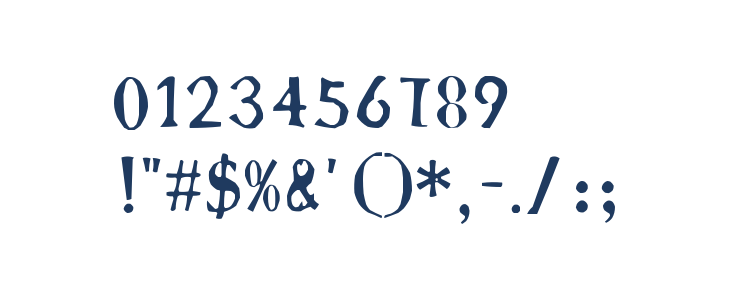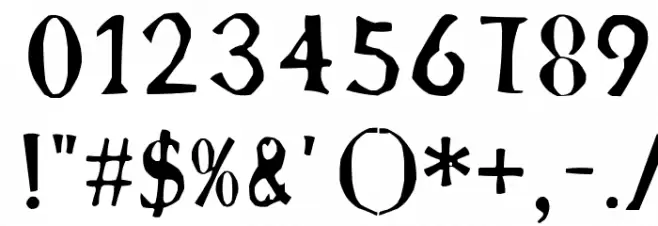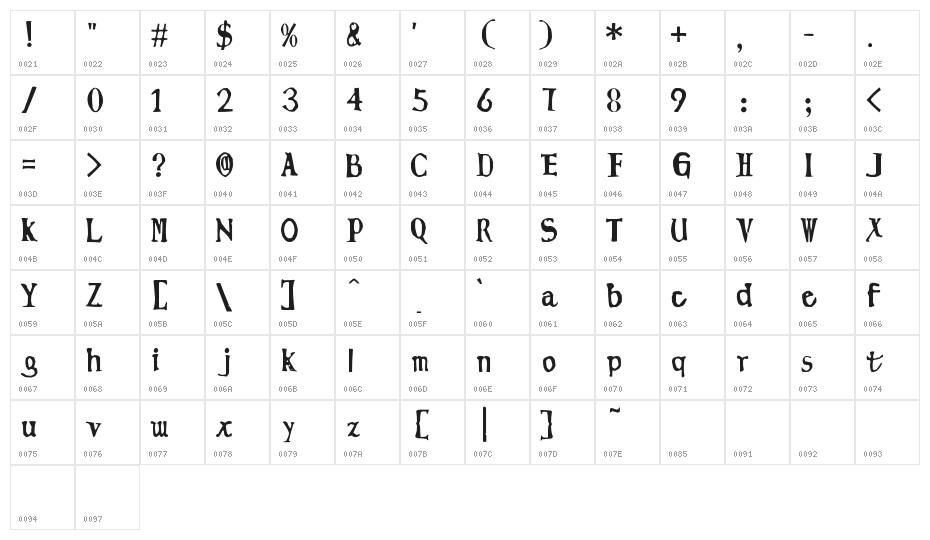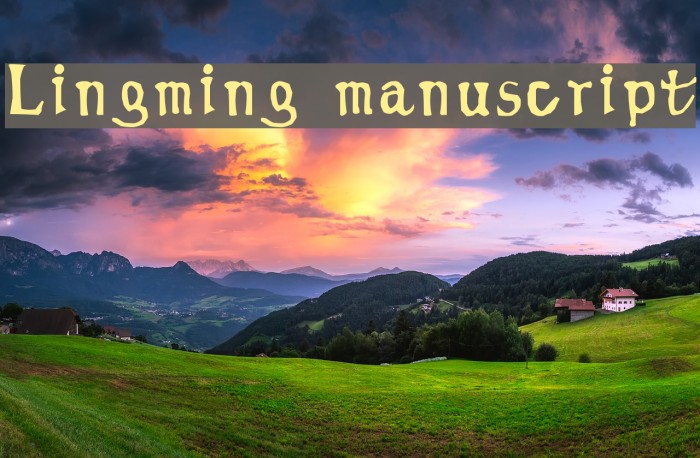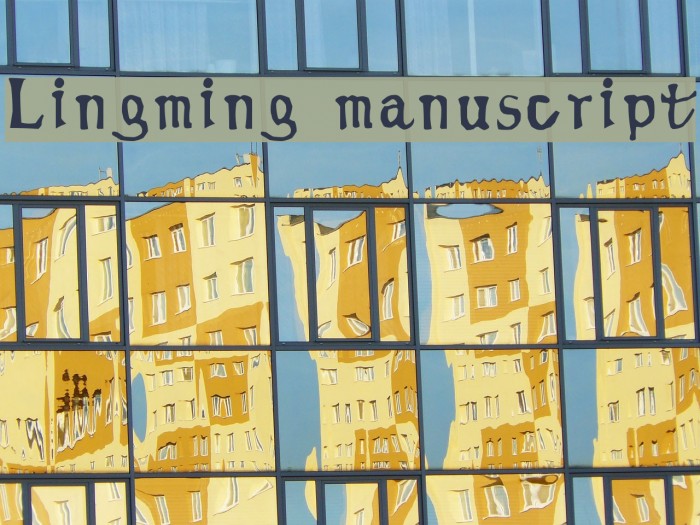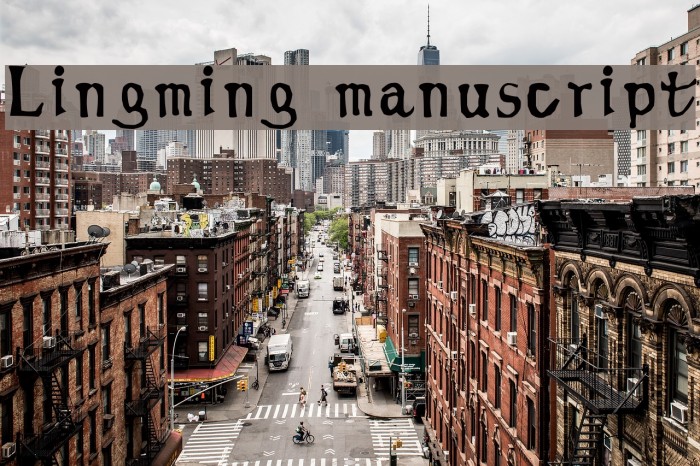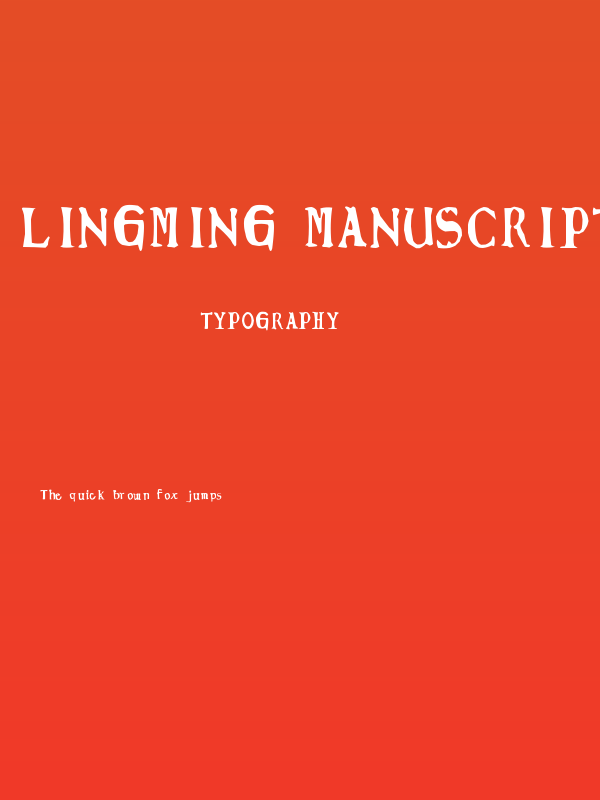
Lingming manuscript Font
Lingming manuscript Description
This font features a unique, hand-drawn style that evokes a sense of historical manuscripts. The characters are irregular and slightly whimsical, with varying stroke widths that add to its charm. The uppercase letters are bold and prominent, while the lowercase letters maintain a playful yet legible appearance. Numbers and special characters follow the same aesthetic, making the font versatile for creative projects. The overall design is reminiscent of old-world calligraphy, with a modern twist that makes it suitable for contemporary use.
| Use Case | Headlines, Logos, Artistic projects |
| Proposed Projects | Ideal for invitations, greeting cards, book covers, and artistic posters. |